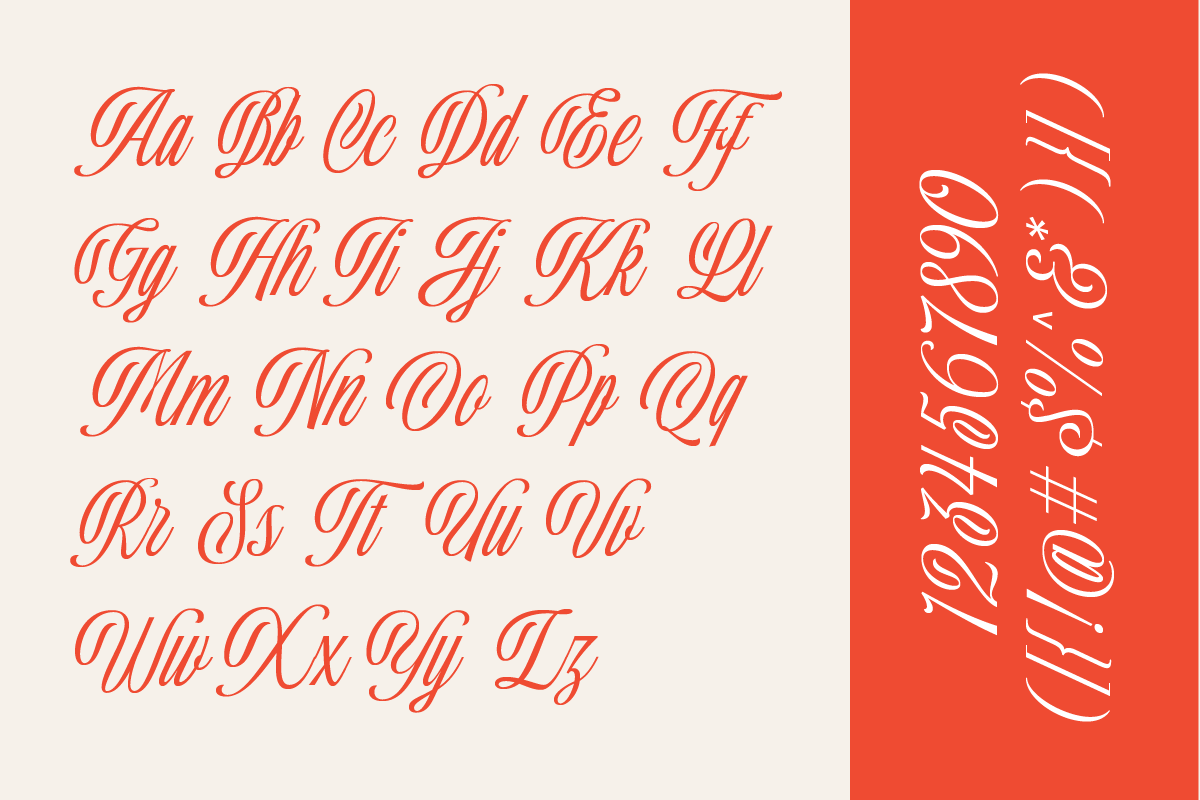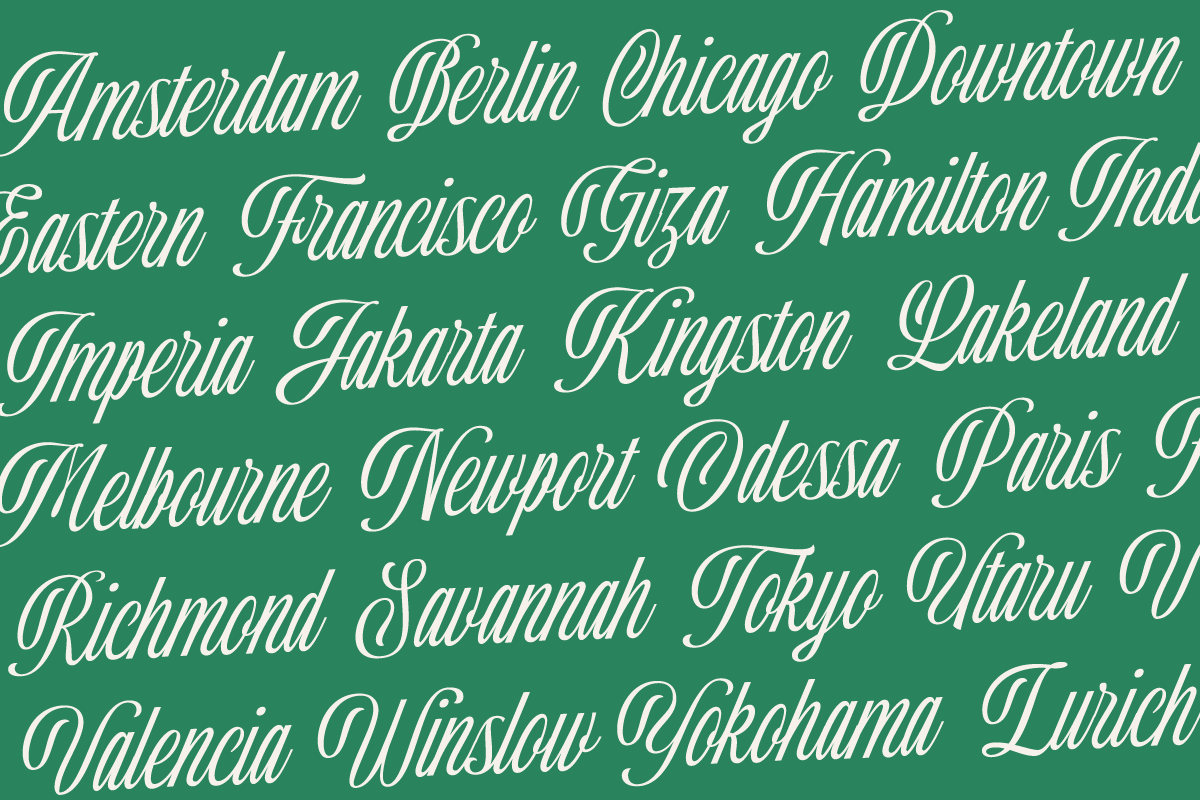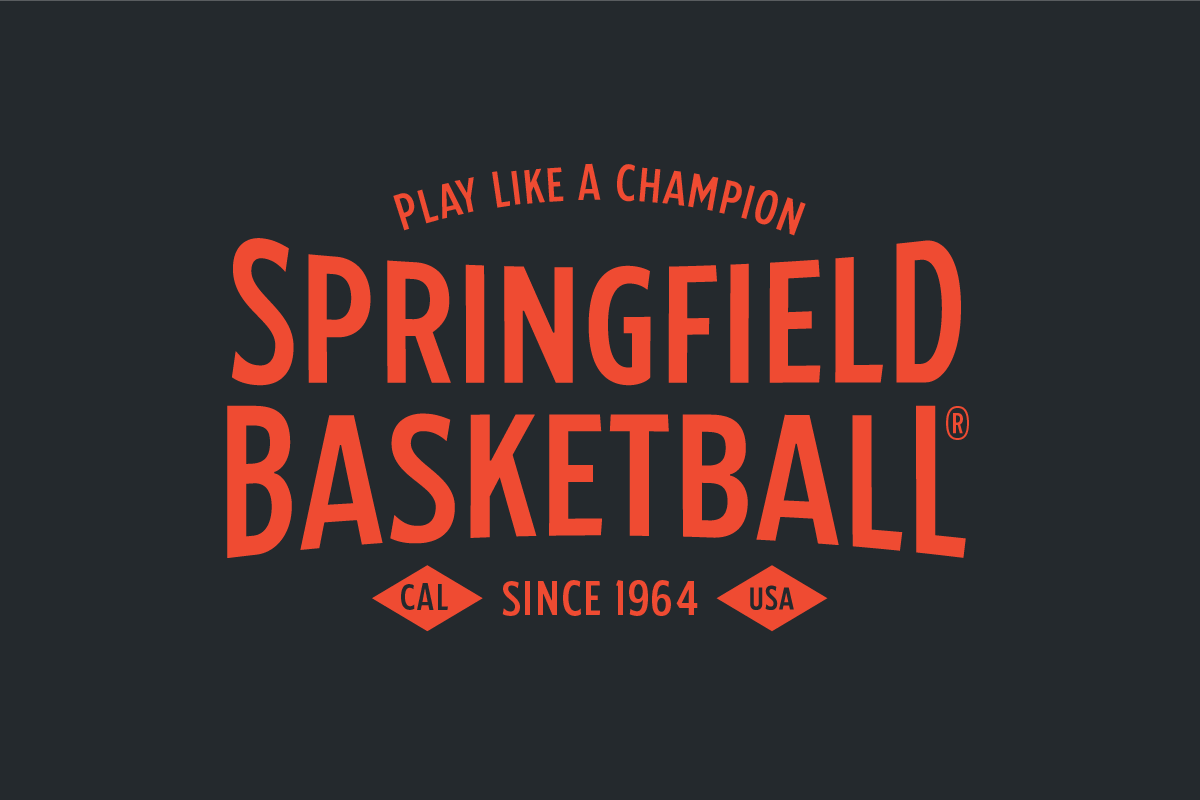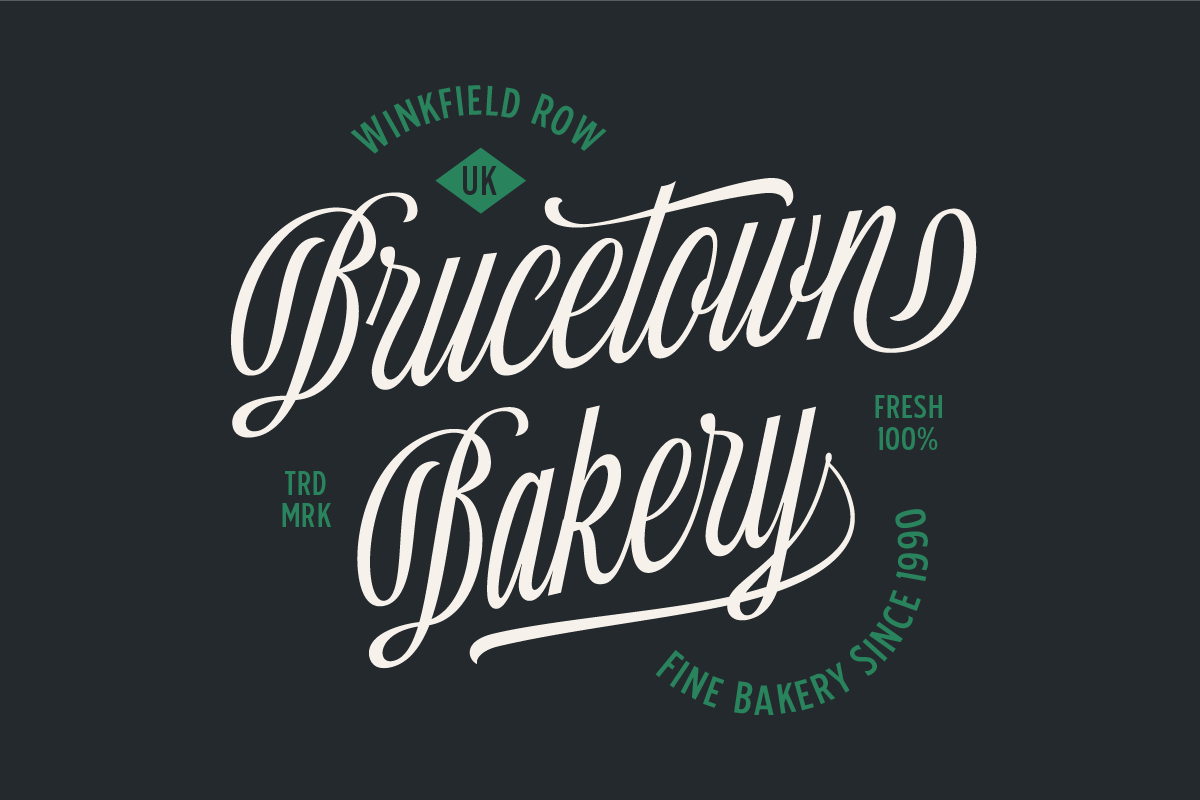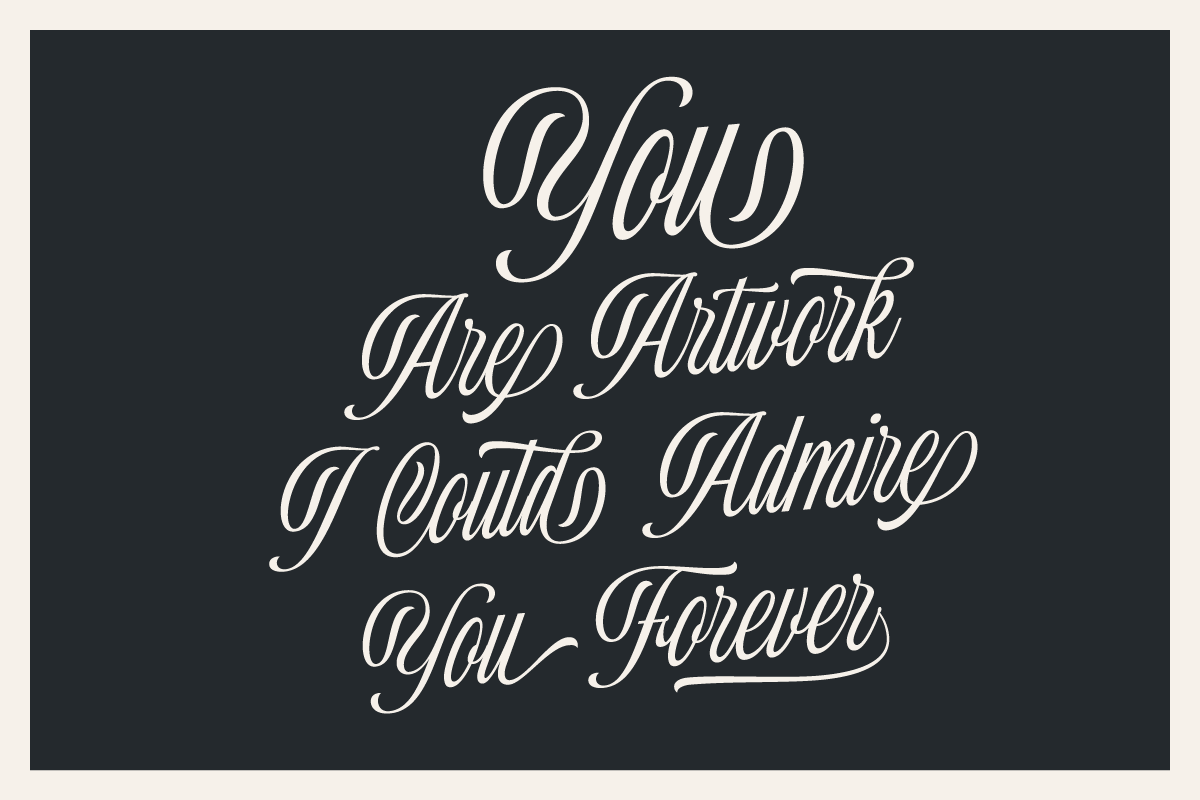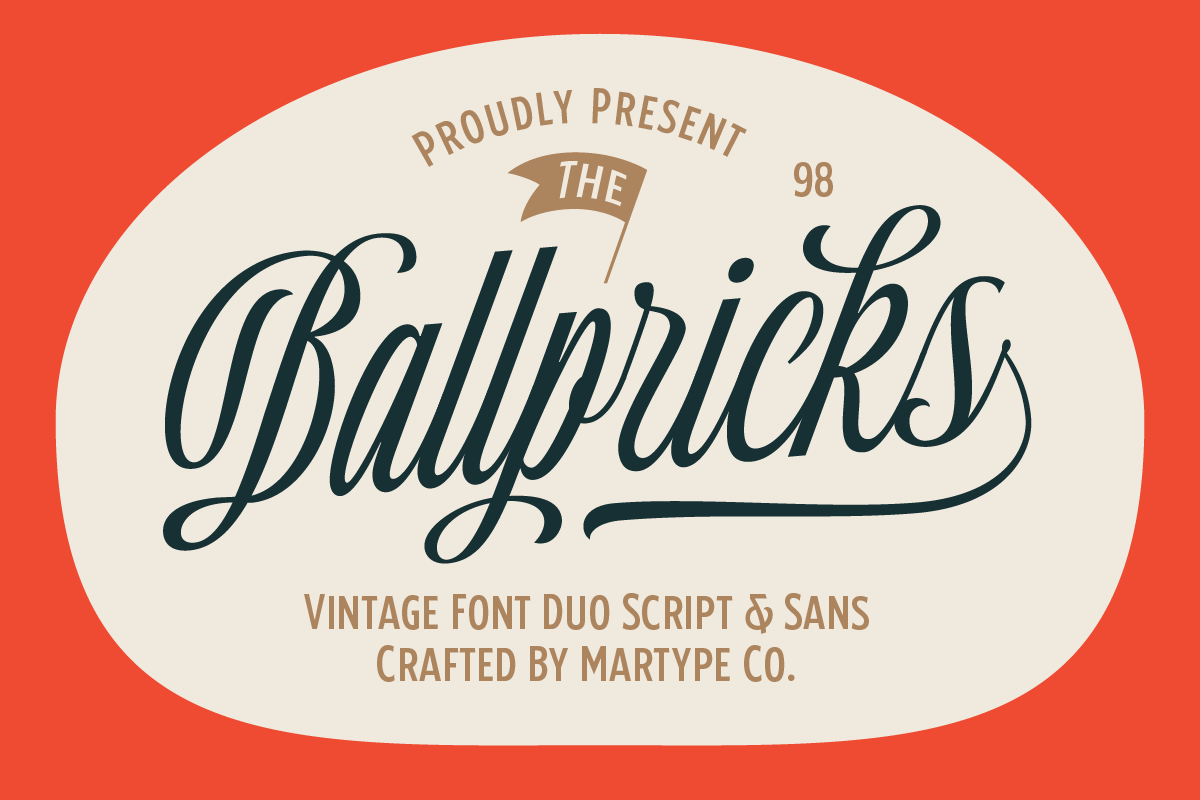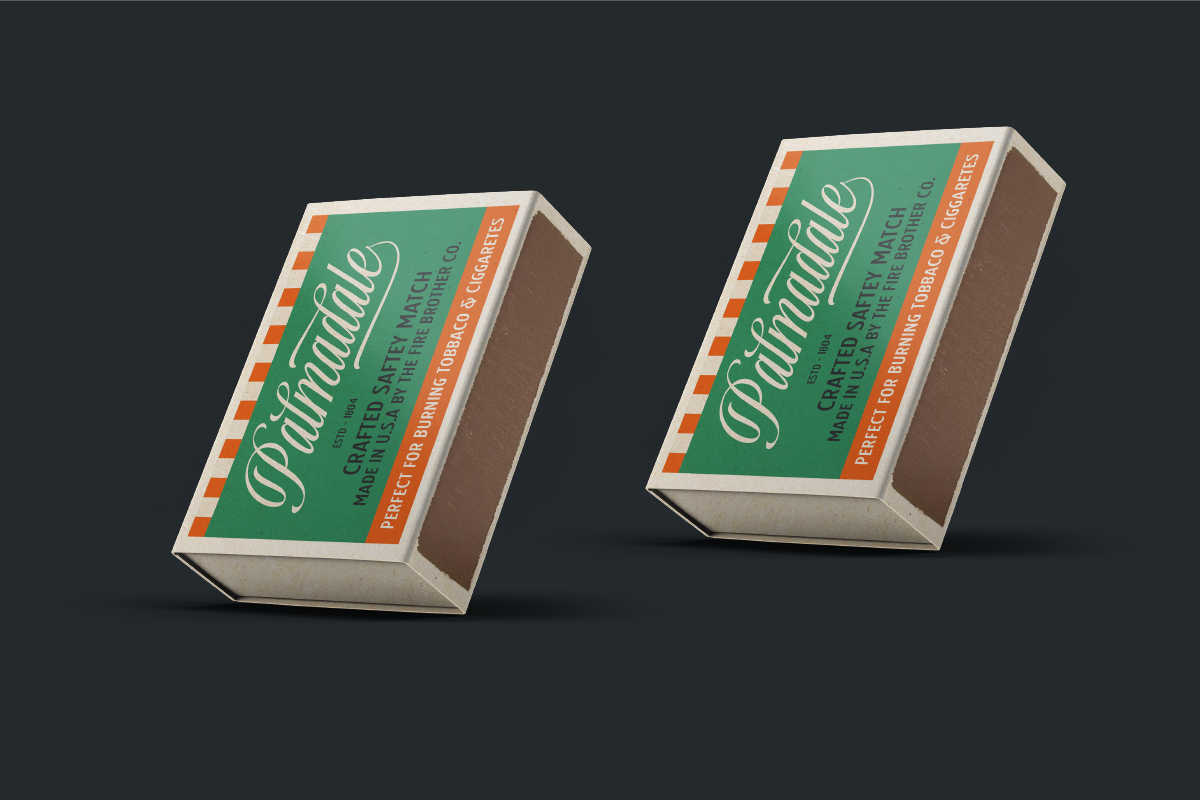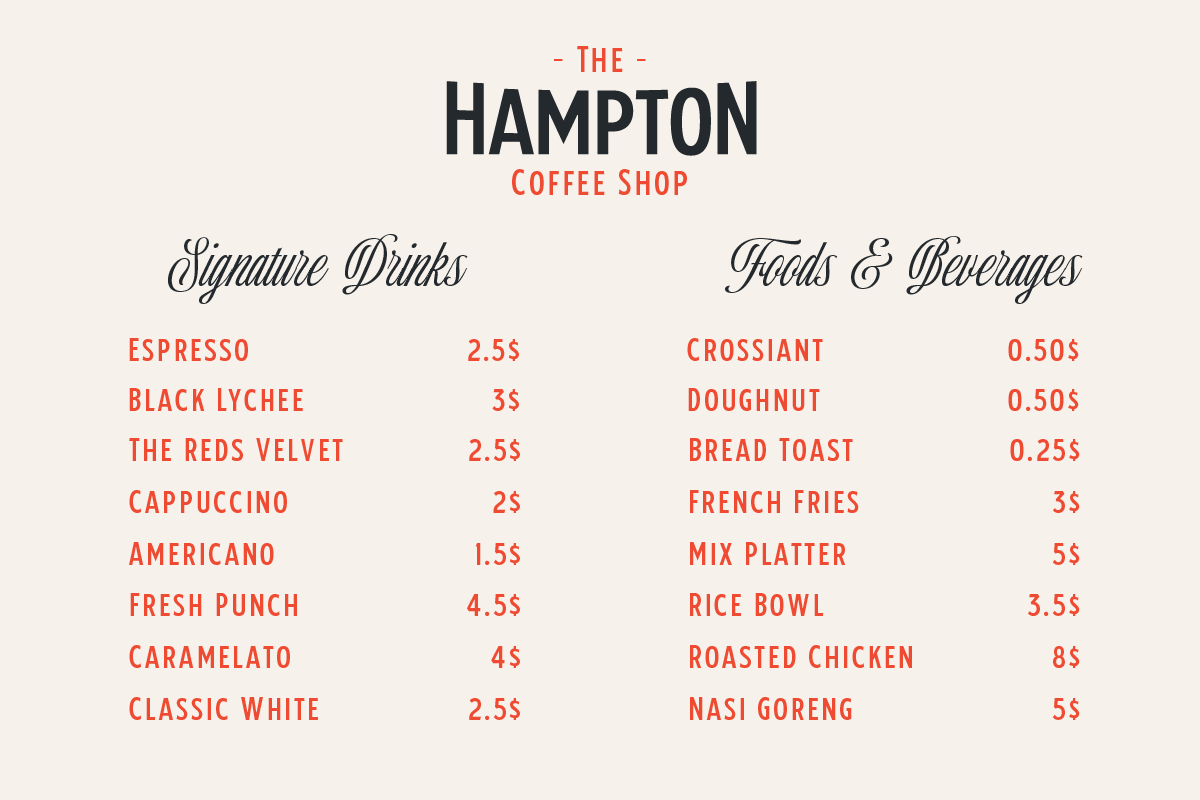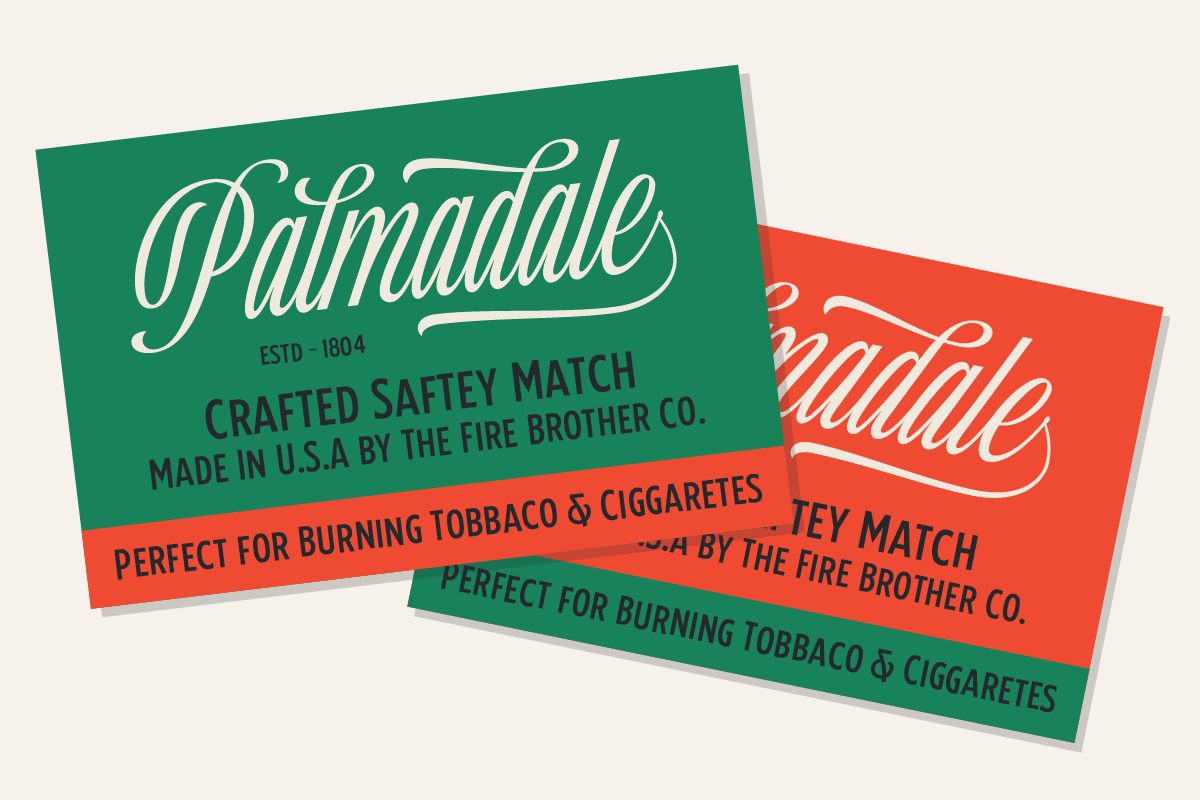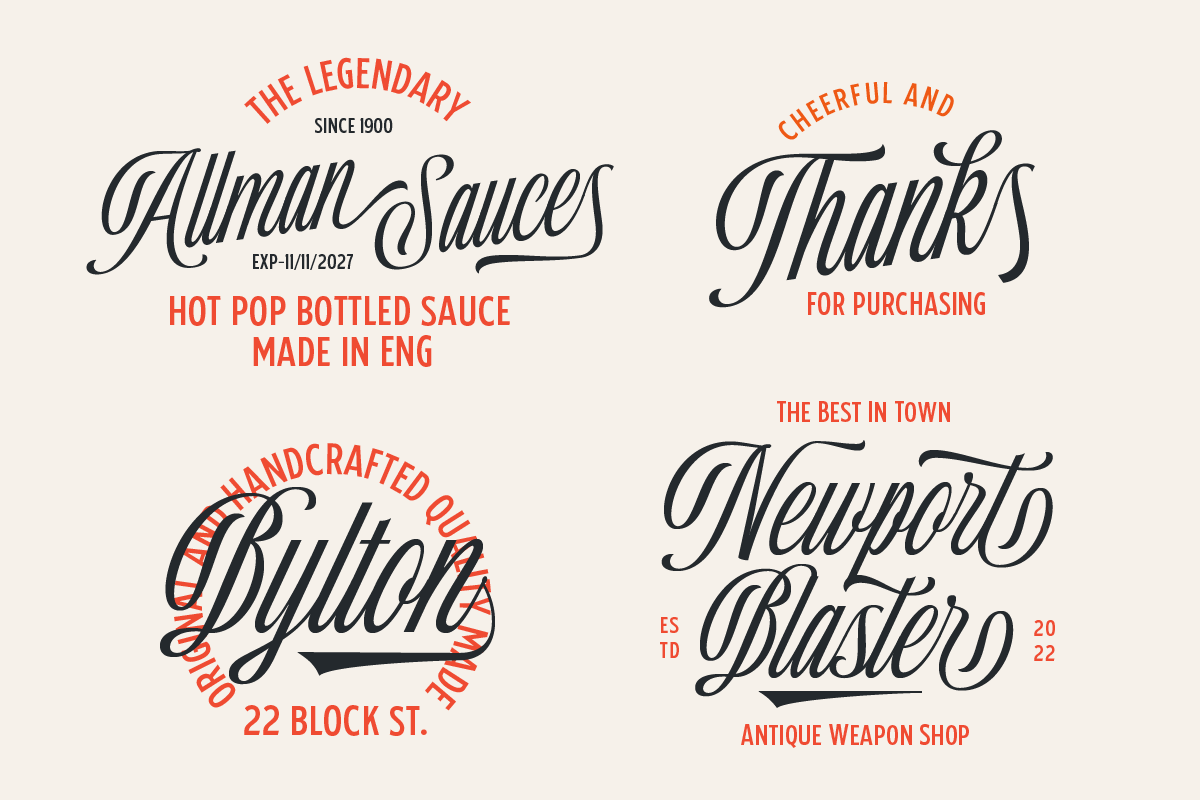
Ballpricks - Vintage Font Duo
Ballpricks Script is a vintage script font designed with carefully handcrafted. Good for branding, T-shirts, label design, any vintage and retro design, headlines, logotypes, and any project with script font purposes. This font also can make you happy when you design something even that you don't like, and of course, this font makes your design flawlessly and come with reasonable prices for this unique font.
- Ballpricks Script
Multilingual Support support many different languages 20+ .